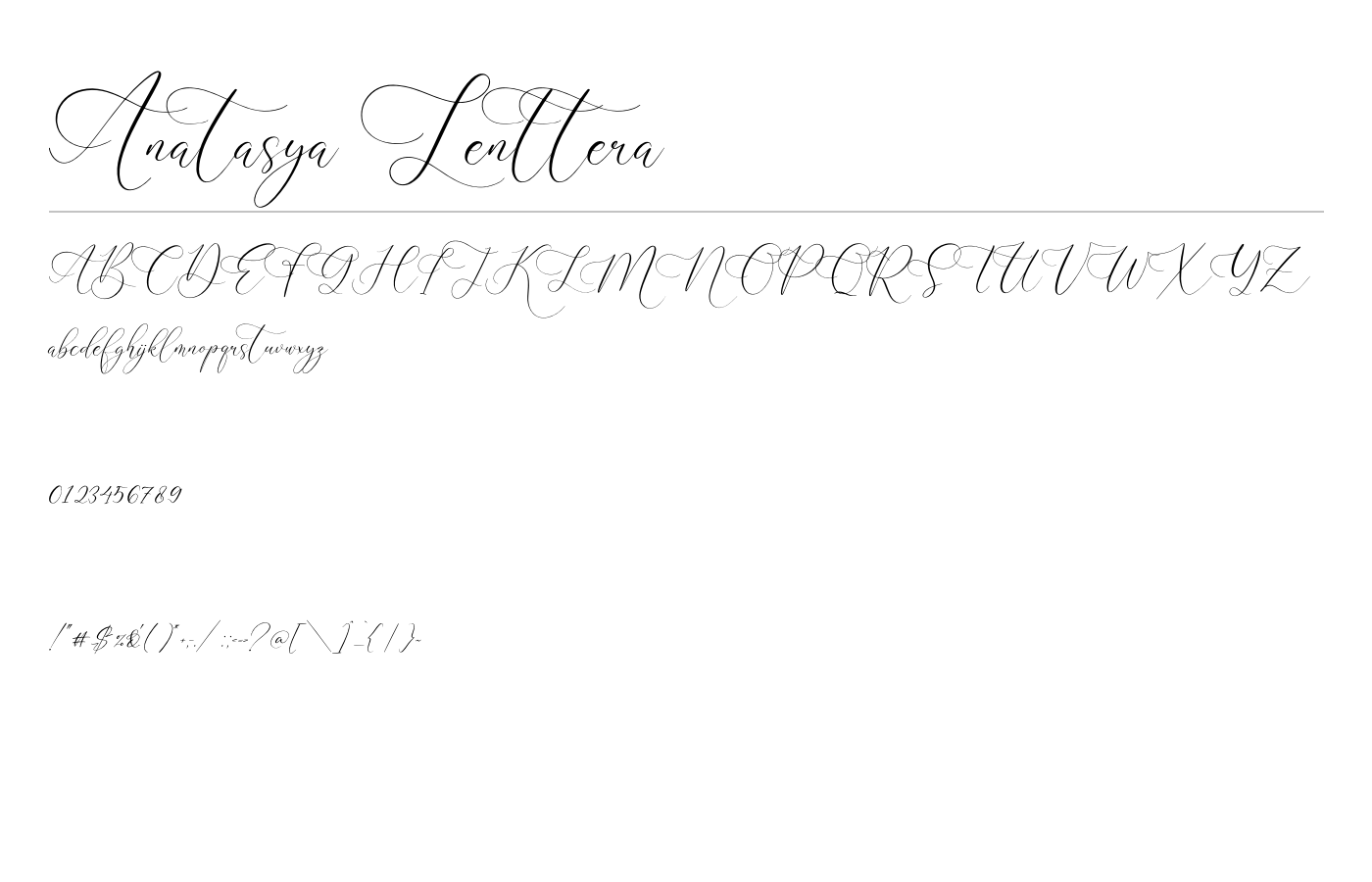
Anatasya Lenttera is a delicate, elegant script font featuring highly ornamental, flowing strokes that convey a graceful and sophisticated personality. Its thin weight, with tall, slender letterforms and elaborate swashes, makes it perfect for luxury branding, wedding invitations, and refined editorial designs where a romantic and artistic touch is desired. This font shines best in display settings where its intricate details can be fully appreciated.
Anatasya Lenttera Font
About Anatasya Lenttera Font